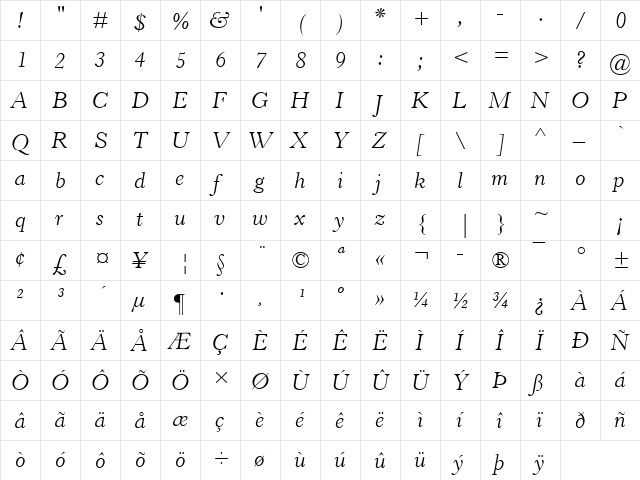
Horley OS MT Light Italic
Design Context for Horley OS MT Light Typeface
Horley OS MT Light offers clean, dependable letterforms without strong stylistic allegiance, making it a practical choice for designers who need flexibility. The slanted form adds forward momentum and visual energy. The delicate stroke weight brings airiness and refinement to layouts.
Pro Tip: Use Horley OS MT Light for emphasis, pull quotes, and subheadings where its slanted energy can add rhythm to the layout.